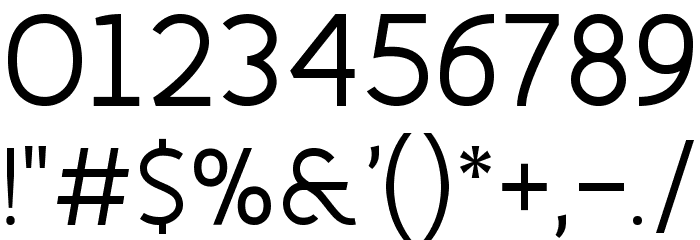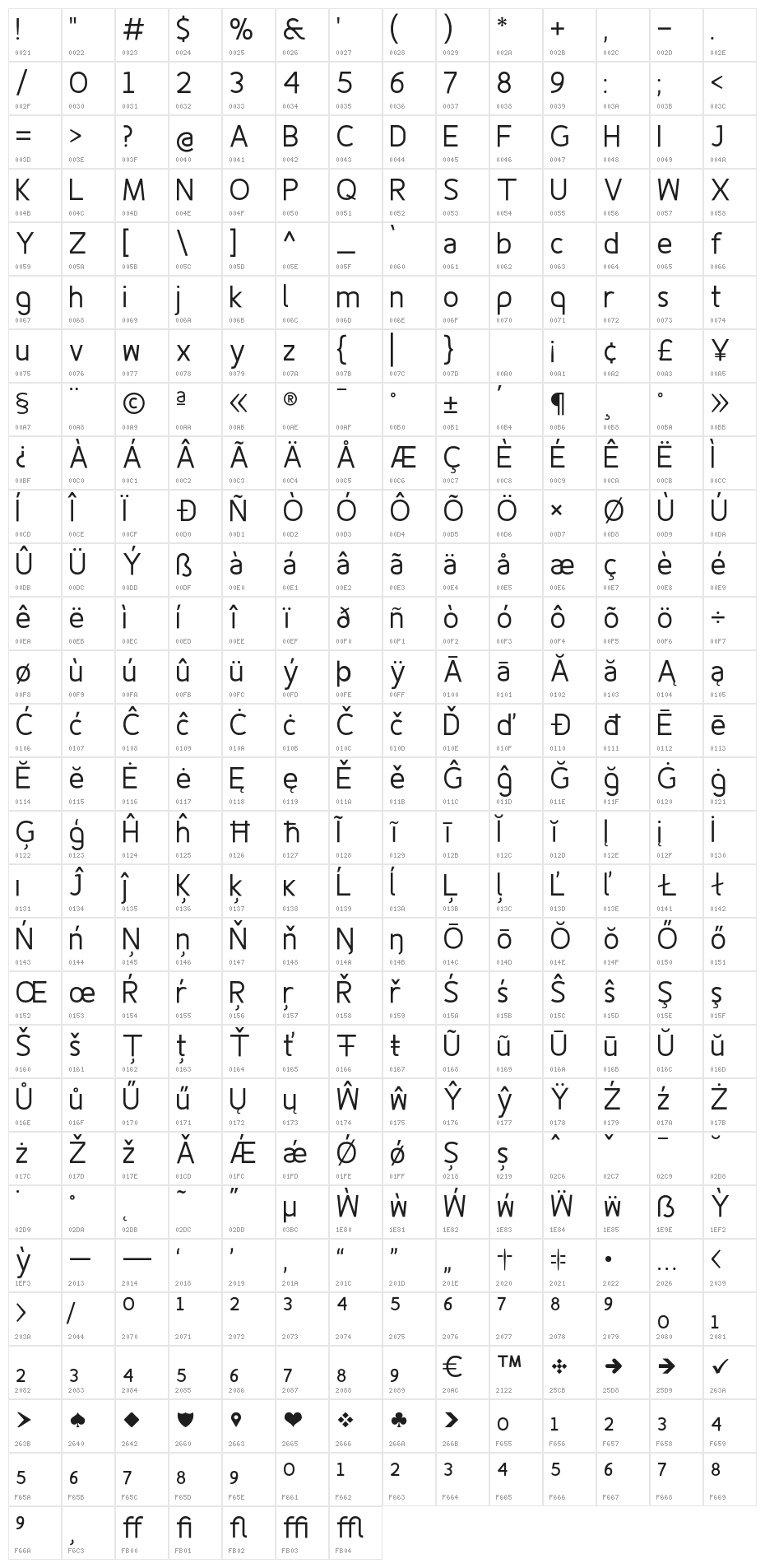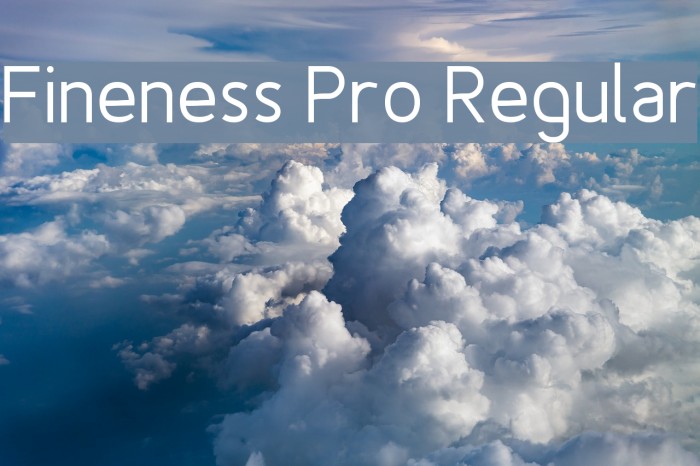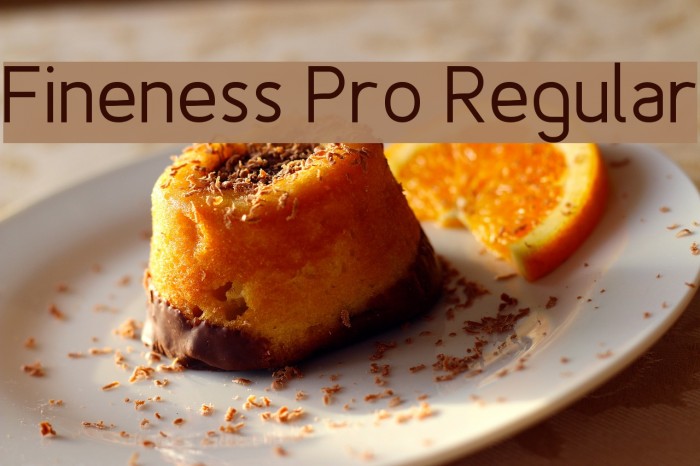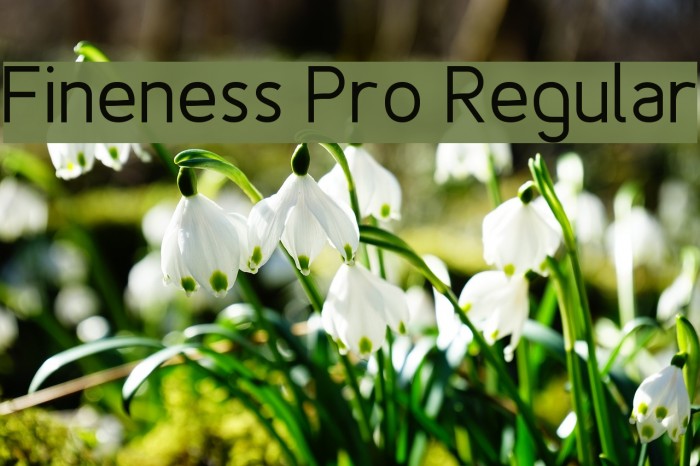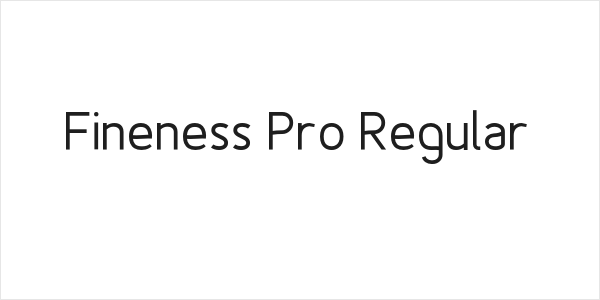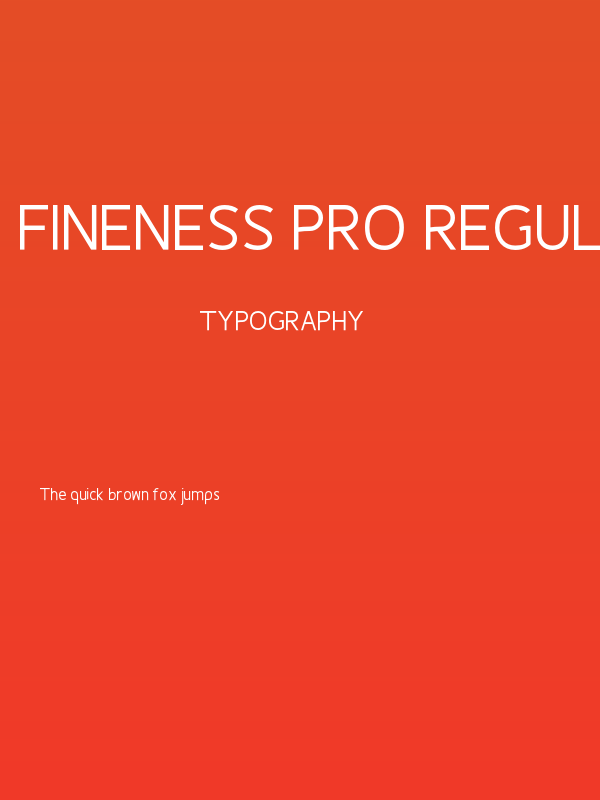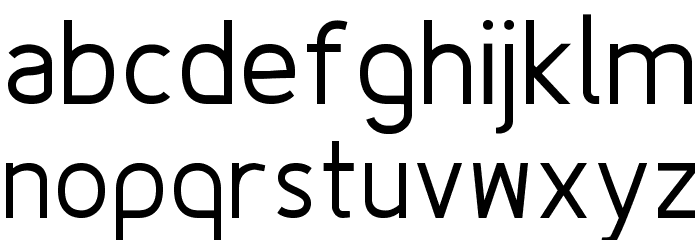
Fineness Pro Regular Font
Fineness Pro Regular Description
This font features a clean and modern sans-serif design, characterized by its simplicity and clarity. The letters are evenly spaced, providing a harmonious and balanced appearance. The strokes are uniform in thickness, contributing to a sleek and professional look. The font is versatile, suitable for both digital and print media, and its legibility makes it ideal for various applications. The numerals and special characters are designed to complement the alphabet, maintaining consistency throughout the typeface.